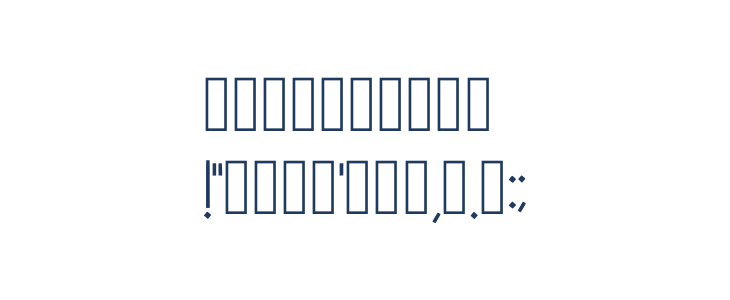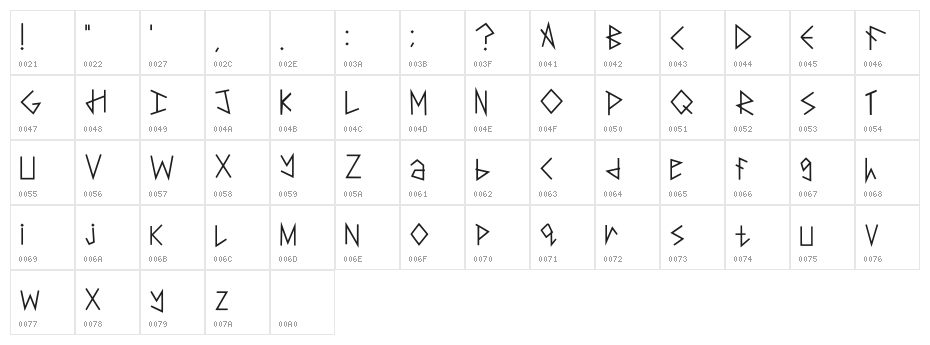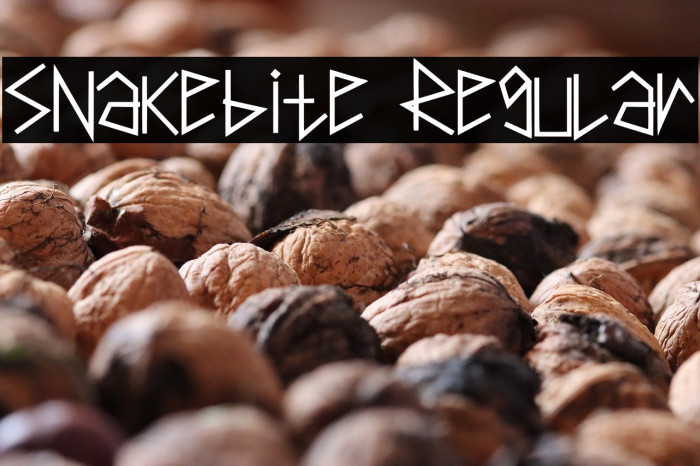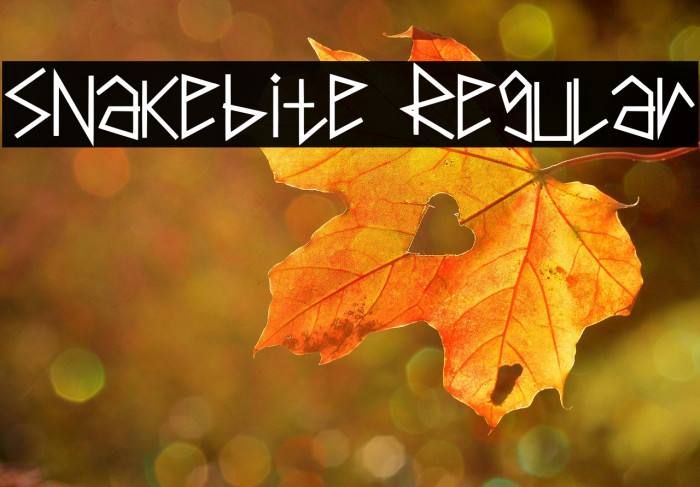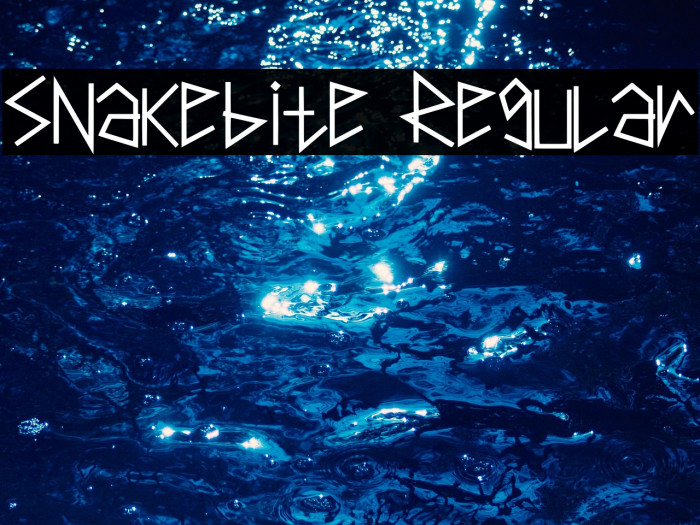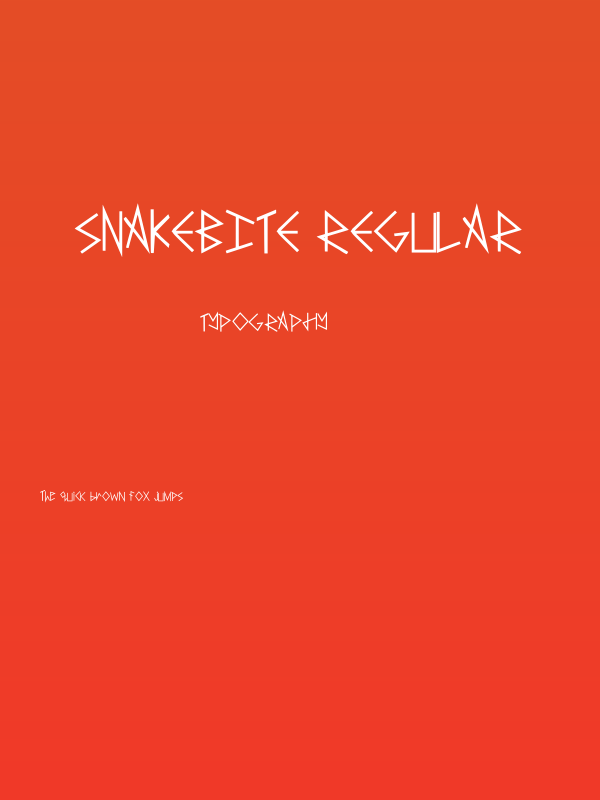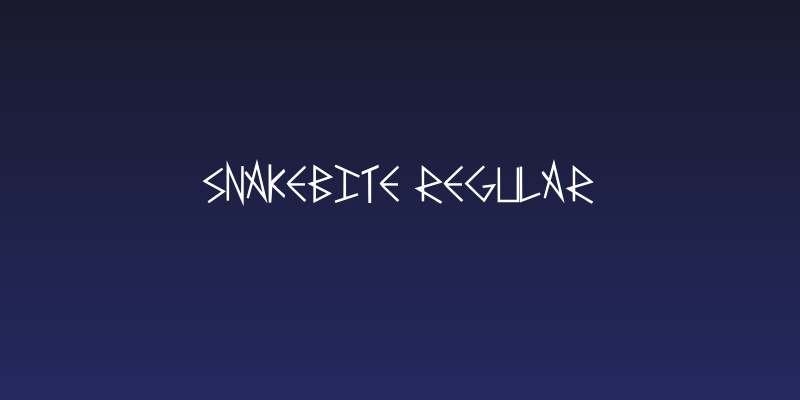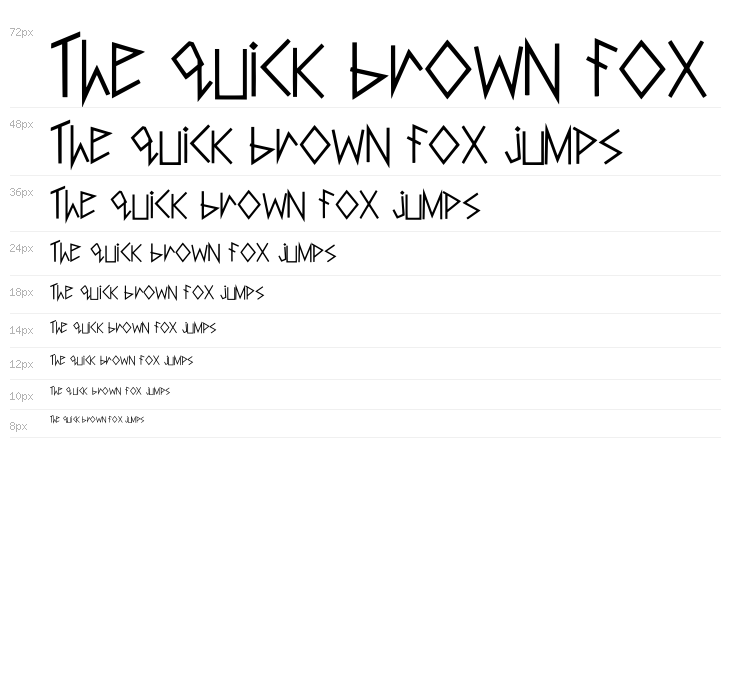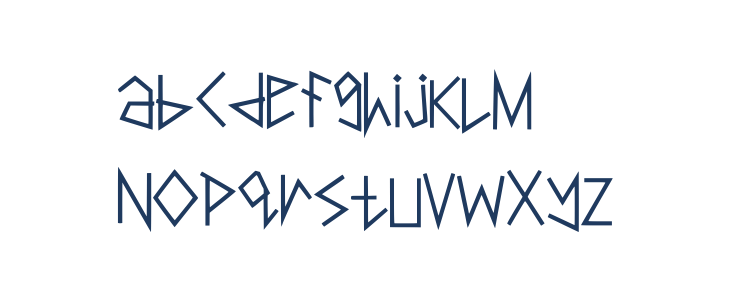
Snakebite Regular Font
Snakebite Regular Description
This font features a unique, angular design with sharp, geometric lines that create a striking and edgy appearance. The characters are constructed with a series of straight lines and sharp angles, giving it a modern and somewhat futuristic look. The uppercase and lowercase letters maintain a consistent style, with a uniform height and width that enhances readability. The numbers and special characters follow the same angular theme, ensuring a cohesive appearance across all elements. This font's distinct style makes it stand out, making it suitable for creative and bold design projects.
| Use Case | Logos, Headlines, Posters |
| Proposed Projects | Ideal for branding, posters, album covers, and any project requiring a bold, modern aesthetic. |